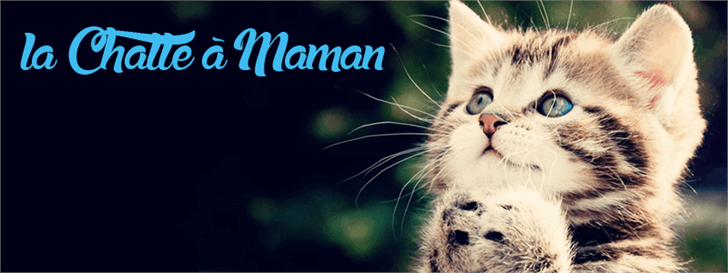
Free la Chatte à Maman Font
Free la chatte ã maman font for any designer that is looking to display their design professionally. Download this free font from the original source of Font Space. This is absolutely fancy font so you can easily make world-class designs.